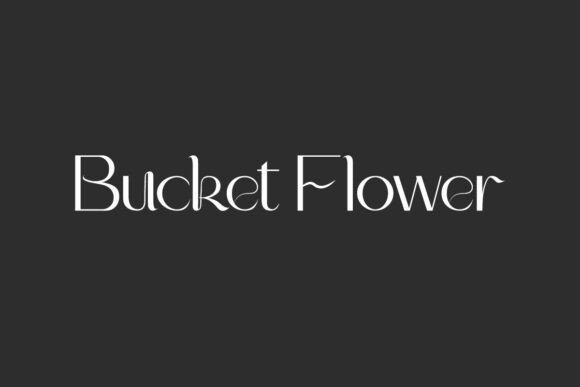
Unlock the Beauty of Bucket Flower Font
Have you ever stumbled upon a design that makes you pause and smile? Maybe it was a beautifully crafted logo, a elegant invitation, or a charming product packaging. Whatever it was, it likely had one thing in common – a unique and captivating font that added an extra touch of personality. For designers, finding the perfect font can be a game-changer, and today we’re excited to introduce you to the Bucket Flower Font.
This stunning serif display font is designed to evoke the feeling of a romantic bunch of flowers. With its wavy lines and sophisticated style, it’s the perfect addition to any design project. Whether you’re creating a brand image, a custom design, or a special invitation, the Bucket Flower Font is sure to make your work stand out. Its versatility and beauty make it a valuable asset for any designer looking to add a touch of elegance to their designs.
Bucket Flower Font Key Features
- Font Family: Bucket Flower Font is a sans-serif font family with a unique, hand-drawn style.
- Unique Characteristics: Bucket Flower Font features a distinctive, floral-inspired design with intricate details and subtle texture, adding a touch of whimsy and elegance to any design.
Bucket Flower Font Review
I recently had the chance to work with the Bucket Flower Font, and I have to say, it’s a mixed bag. On the one hand, there are some things that really shine ✨.
- Unique character**: The Bucket Flower Font has a distinct, whimsical feel to it. It’s perfect for adding a touch of playfulness to your designs.
- Customization options**: The font comes with a range of customization options, including color, size, and style. This makes it easy to tailor the font to your specific needs.
- Scalability**: The font scales well, making it suitable for use in a variety of contexts, from small logos to large signage.
However, there are also some limitations to consider ⚠️.
- Limited language support**: The Bucket Flower Font is not optimized for use in languages that require a lot of diacritics or complex script systems.
- Not suitable for formal designs**: Due to its playful nature, the font may not be the best choice for formal or professional designs.
- May require additional styling**: Depending on the context, the font may require additional styling to make it look its best.
Overall, I think the Bucket Flower Font is a fun and versatile option that can add a lot of character to your designs. However, it’s not a one-size-fits-all solution, and you should carefully consider its limitations before using it in your next project.
The Bucket Flower Font is perfect for:
- Wedding invitations
- Food blogs or recipes
- Playful advertisements
Remember to use the Bucket Flower Font in moderation and in contexts